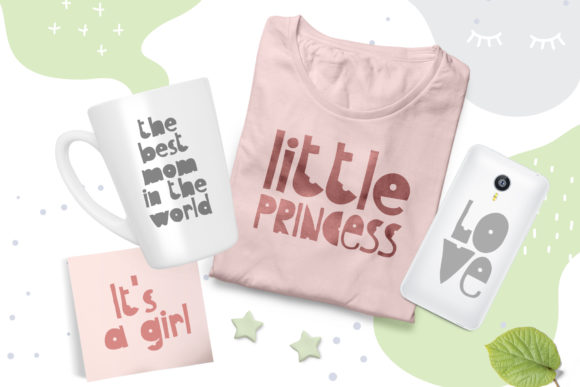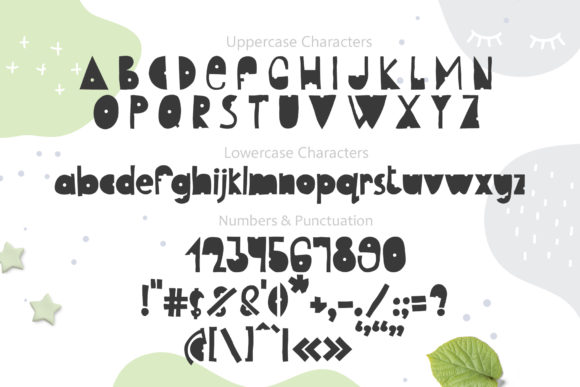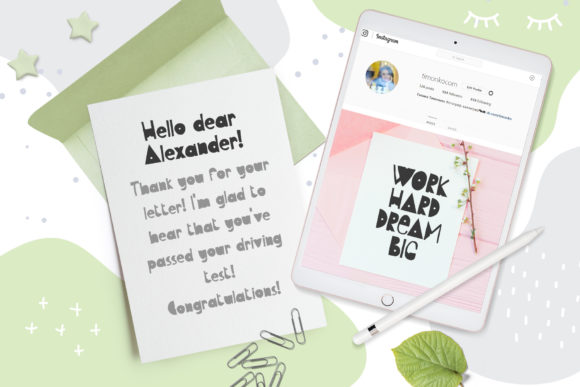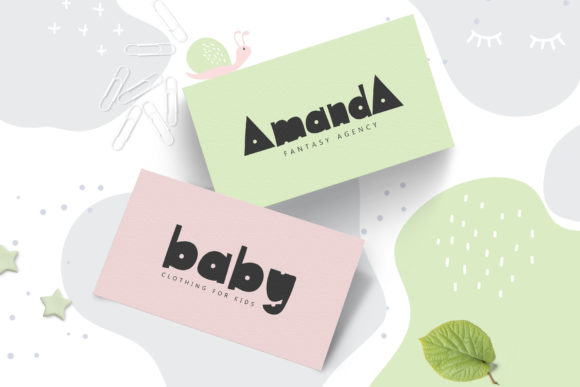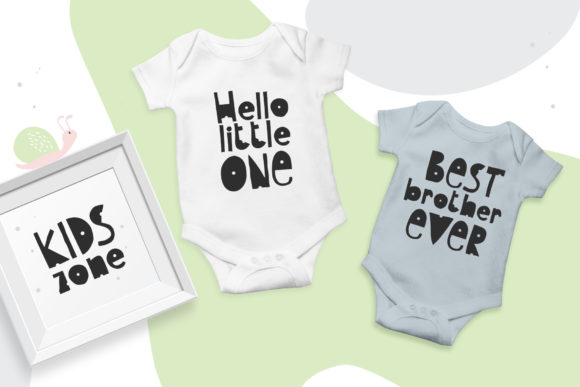
Hello Baby Font: The Ultimate Display Font for Creative Standouts
Hello Baby Font is a charming and whimsical display font that embodies the essence of fun, quirkiness, and authenticity. This enchanting font is designed to turn any creative idea into a true standout, making it a perfect choice for designers and crafters looking to add a touch of personality to their projects.
The Characteristics of Hello Baby Font
Hello Baby Font is a display font that boasts a unique and playful design. Its letters are carefully crafted to exude a sense of friendliness and approachability, making it ideal for projects that require a touch of whimsy and charm. The font’s quirky and authentic feel makes it perfect for creative projects that need to stand out from the crowd.
What Makes Hello Baby Font So Special?
So, what sets Hello Baby Font apart from other display fonts? Here are a few key features that make it a standout:
- Unique Letterforms: Each letter in Hello Baby Font is carefully designed to be distinctive and eye-catching, making it perfect for headlines, titles, and other display text.
- Fun and Quirky: The font’s playful design makes it ideal for projects that require a touch of whimsy and humor.
- Authentic Feel: Hello Baby Font has a genuine and down-to-earth feel that makes it perfect for projects that require a personal touch.
- Highly Versatile: The font is suitable for a wide range of creative projects, from branding and advertising to packaging and digital media.
How to Use Hello Baby Font in Your Projects
Hello Baby Font is a versatile font that can be used in a variety of creative projects. Here are a few ideas to get you started:
- Branding and Logo Design: Use Hello Baby Font to create a unique and memorable logo that reflects your brand’s personality.
- Headlines and Titles: Add a touch of whimsy and charm to your headlines and titles with Hello Baby Font.
- Packaging Design: Use the font to add a playful touch to your packaging design and make your products stand out.
- Digital Media: Hello Baby Font is perfect for digital media, including social media graphics, blog posts, and website headers.
Tips for Getting the Most Out of Hello Baby Font
Here are a few tips for getting the most out of Hello Baby Font:
- Experiment with Different Sizes: Hello Baby Font looks great in a variety of sizes, so don’t be afraid to experiment and find the perfect size for your project.
- Pair it with Other Fonts: The font pairs well with a range of other fonts, so try combining it with different fonts to create a unique look.
- Use it to Add Emphasis: Use Hello Baby Font to add emphasis to important text, such as headlines and titles.
Hello Baby Font is a unique and versatile display font that embodies the essence of fun, quirkiness, and authenticity. With its playful design and highly versatile nature, it’s the perfect choice for designers and crafters looking to add a touch of personality to their projects. Whether you’re working on a branding project, packaging design, or digital media, Hello Baby Font is sure to turn your creative idea into a true standout.
Get Ready to Fall in Love with Hello Baby Font